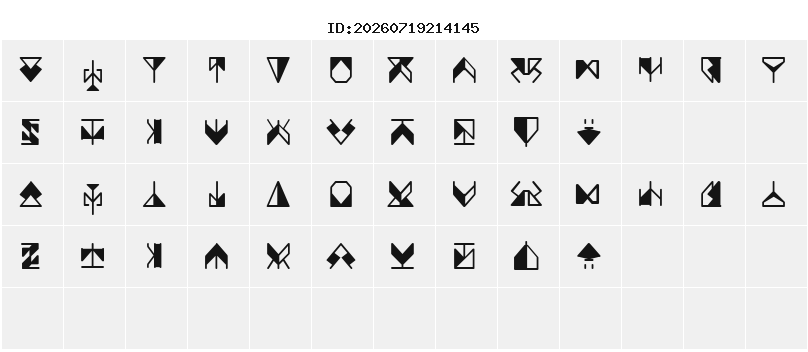
Ergonomix Preview
• Font Name: Ergonomix
• Designer: Apostrophe
• Description: The first character built in this font was the E, which was inspired by enormous Chinese calligraphy on the side of a truck that delivered rice to Chinese restaurants. After the E was shaped properly, it dictated the rules of stroke and angularity for the rest of the font's characters. This font was named Ergonome because its overall appearance somewhat reminds of hand-rests or ergonomic keyboard extensions. It is recommended to use this font at sizes larger than 14 point.